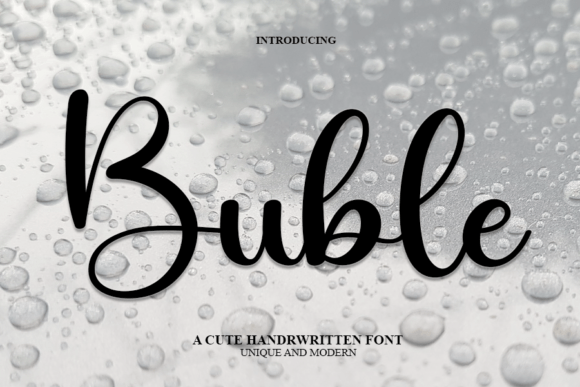
The Elegance of Buble Font: A Designer’s Delight
I still remember the time I was working on a wedding invitation project, and my client asked for a font that exuded elegance and sophistication. I scoured the internet, tried out countless fonts, but nothing seemed to fit the bill. That was until I stumbled upon Buble Font. ✨ It was love at first sight! The elegant and feminine design of Buble Font made it an instant favorite, and I’ve been using it for all sorts of projects ever since.
An Honest Review of Buble Font
What I Love About Buble Font
- ✨ Elegant and feminine design that’s perfect for headlines
- ✅ Highly versatile and suitable for various design projects, from wedding stationery to social media posts
- 💕 Beautifully crafted to add a touch of sophistication to any design
- 🎉 Easy to read and understand, even in smaller font sizes
While Buble Font is an amazing typeface, it’s not without its quirks. 🤔 For instance:
- ⚠️ It may not be the best choice for body text, as it’s designed primarily for headlines
- ⚠️ Some users may find the font a bit too ornate for certain design projects
The Backstory of Buble Font
Buble Font was designed with love and care by a team of talented typographers. The font’s elegant and feminine design is inspired by traditional calligraphy and modern digital design. 💻 The designers aimed to create a font that’s both beautiful and functional, perfect for a wide range of design projects.
| Font Name | Buble Font |
| Author | PAYJHOshop |
Q: What is Buble Font?
A: Buble Font is an elegant and feminine typeface suitable for all types of headlines, from wedding stationery to social media posts.
Q: What are some common uses for Buble Font?
A: Buble Font is perfect for wedding stationery, invitations, florists, packaging, social media posts, and any other design project that requires an elegant and feminine touch.